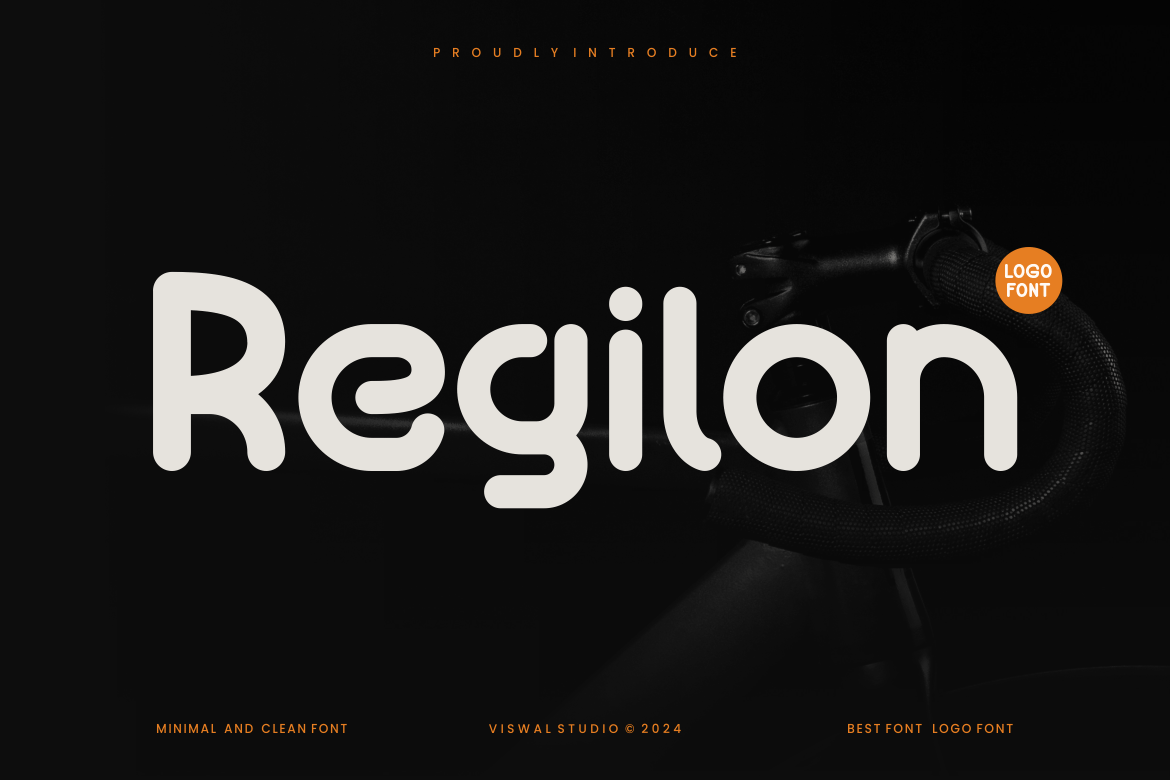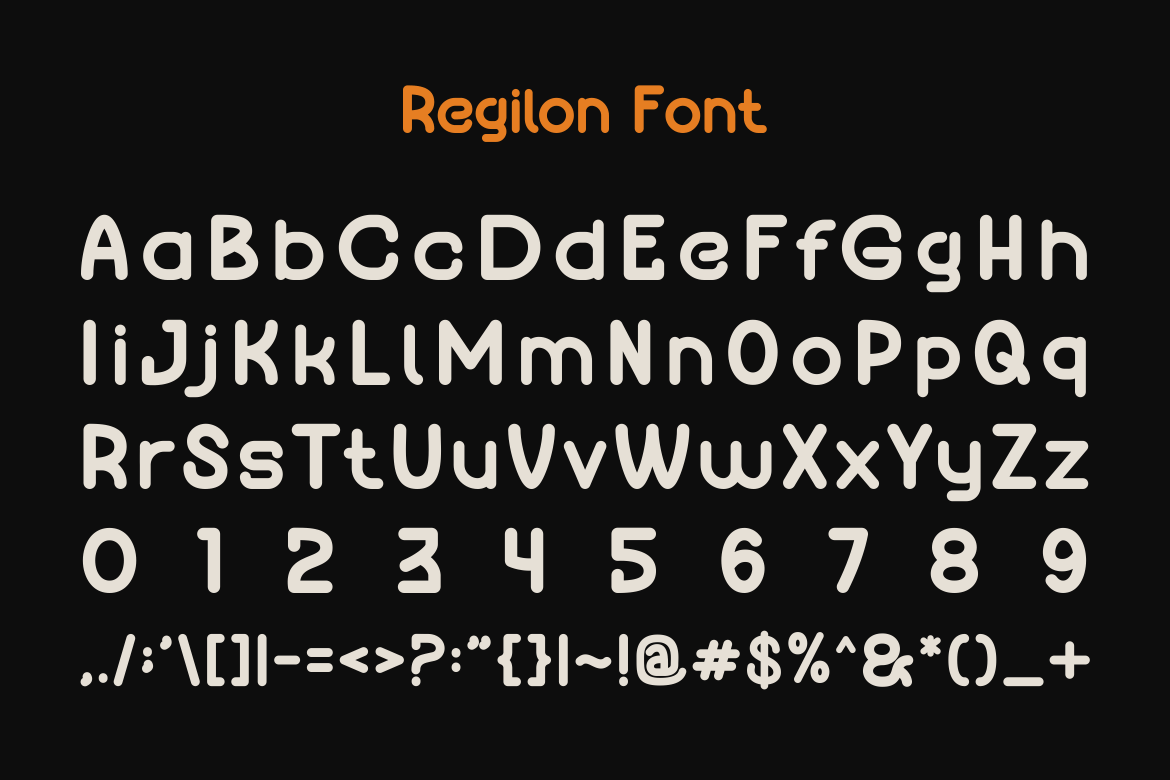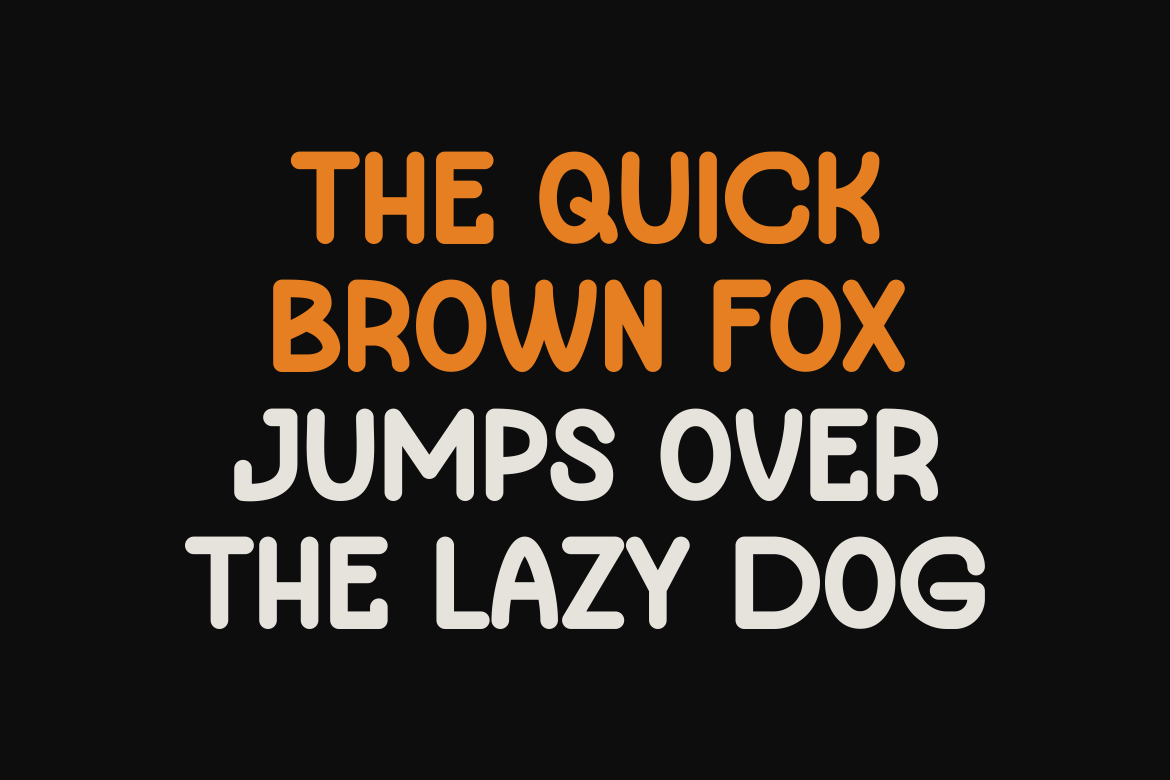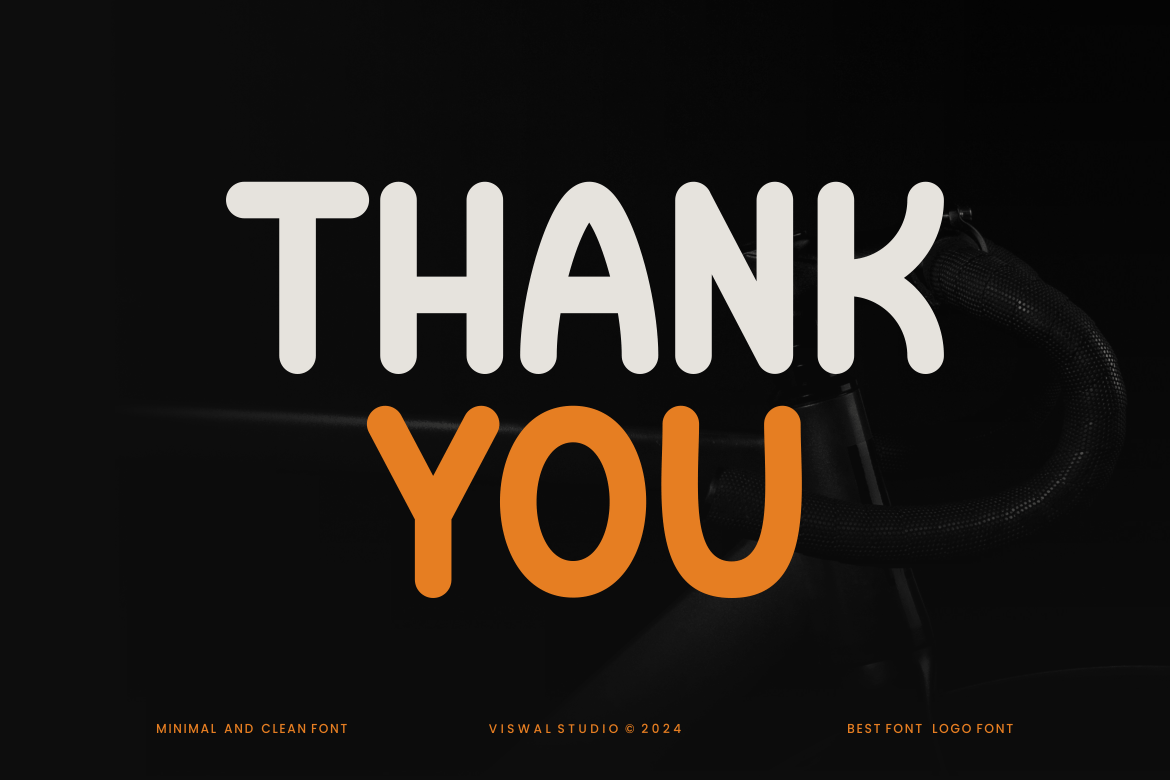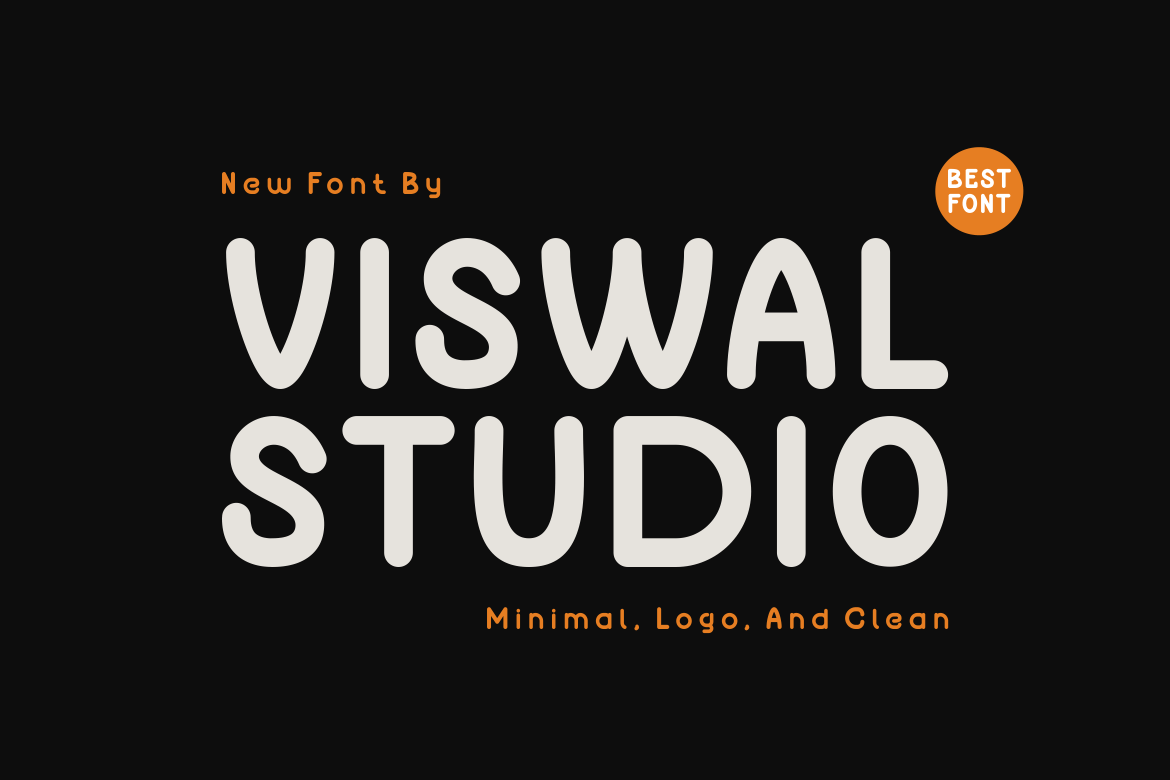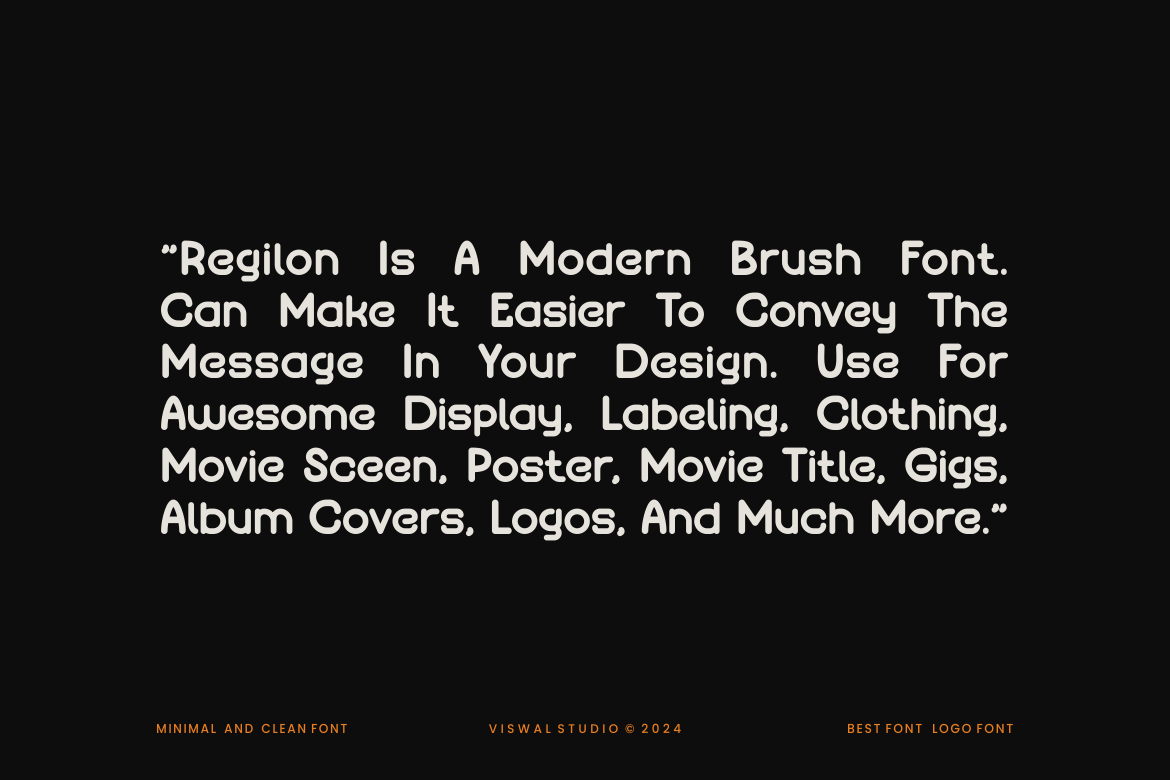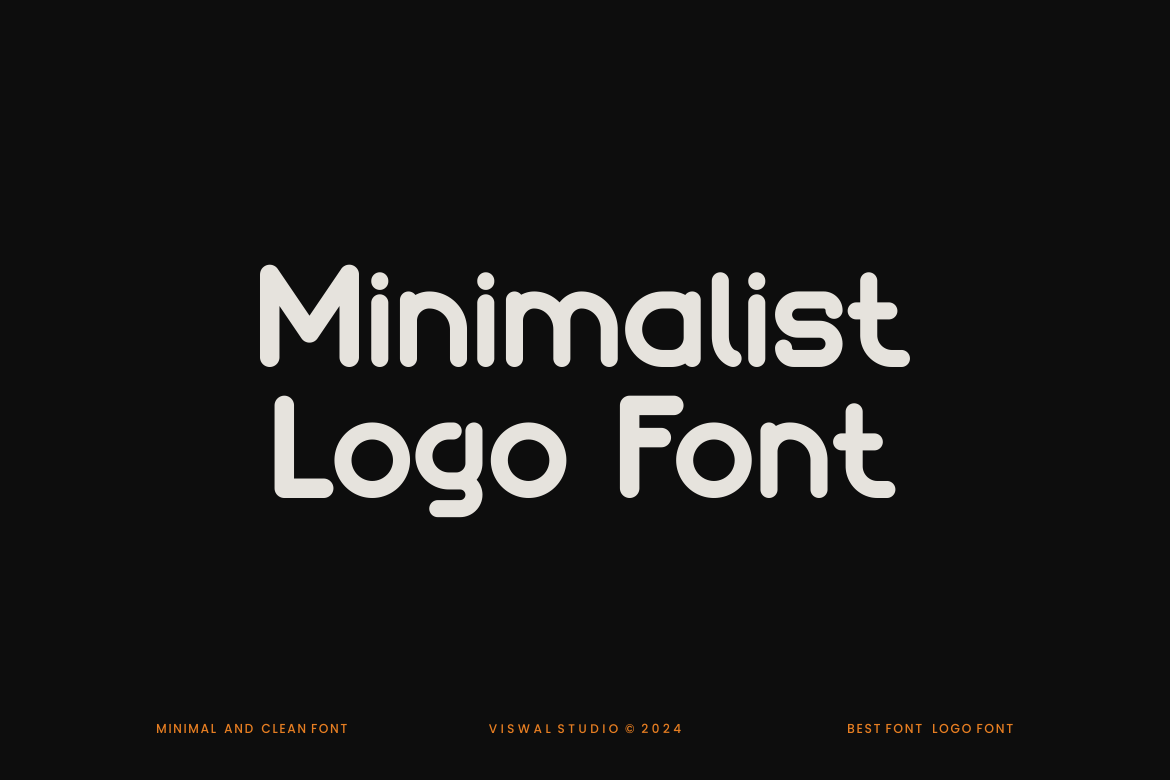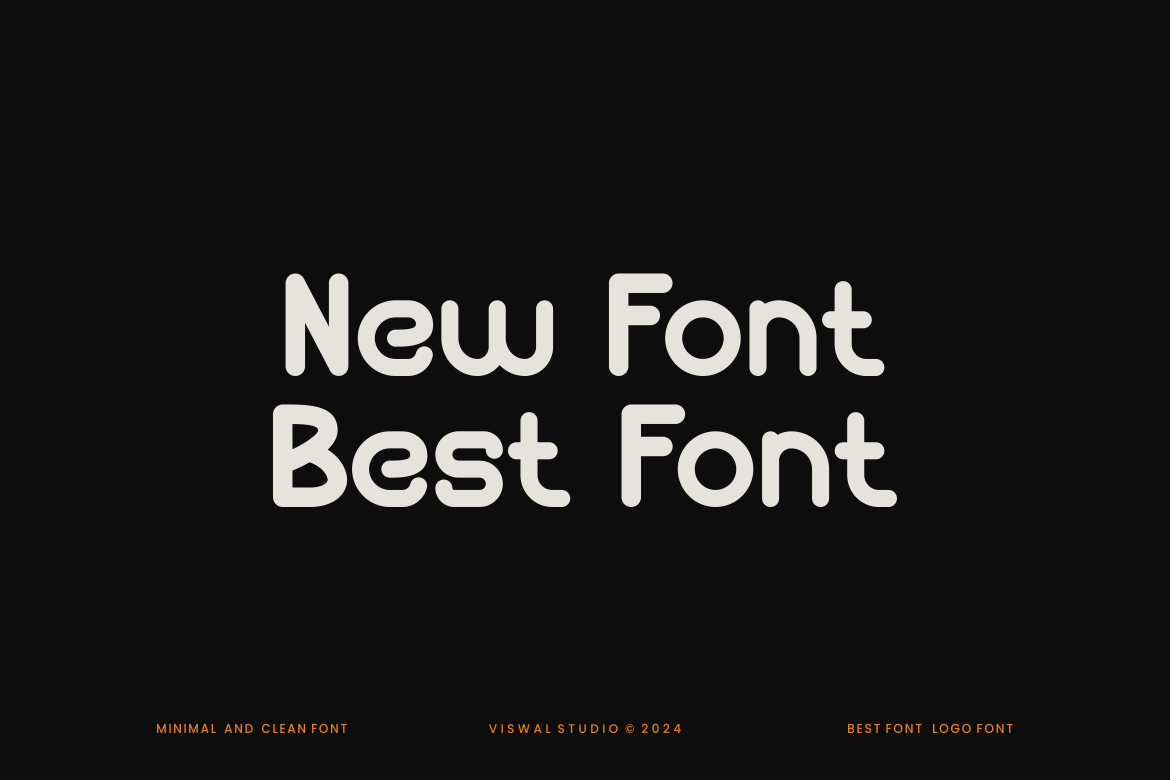
Regilon – Minimal & Logo Font
Presenting Regilon – Font is suitable for badge, labels, logo, branding, magazine, poster and etc. Our fonts have Uppercase & Lowercase, Numeral & Punctuation, Multilingual support and Opentype Features. For Amazing designs you can mix with other fonts as a complement.